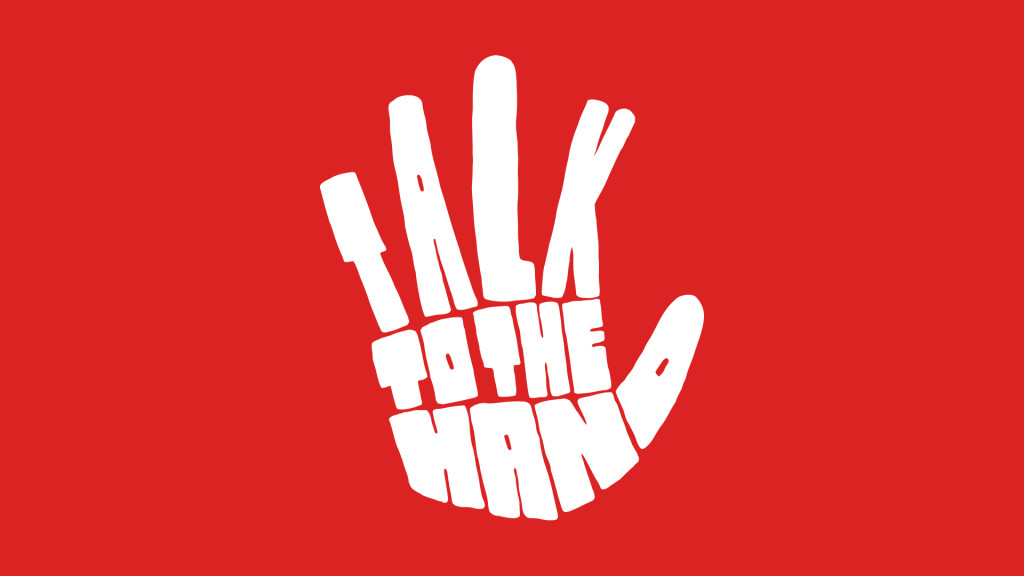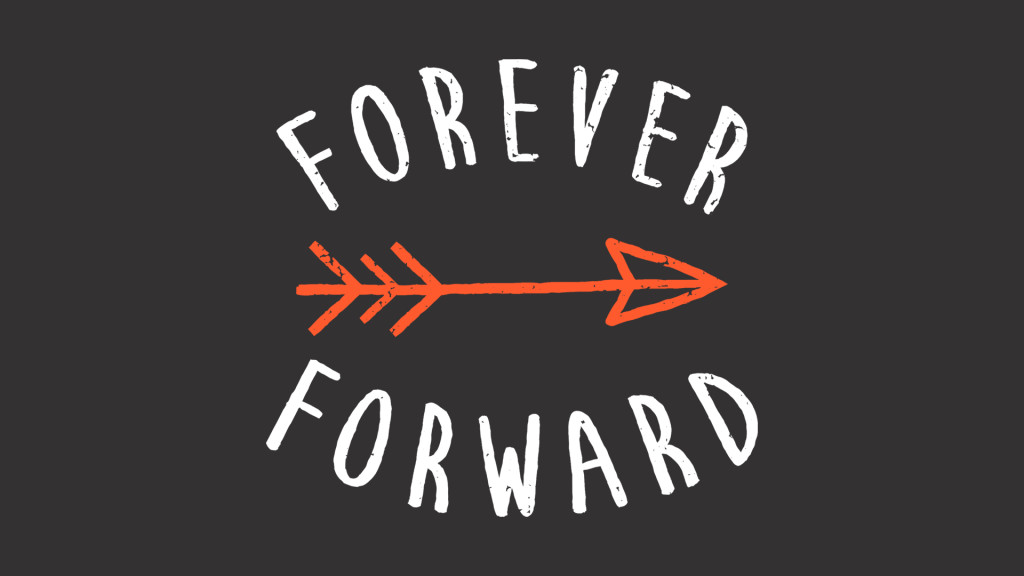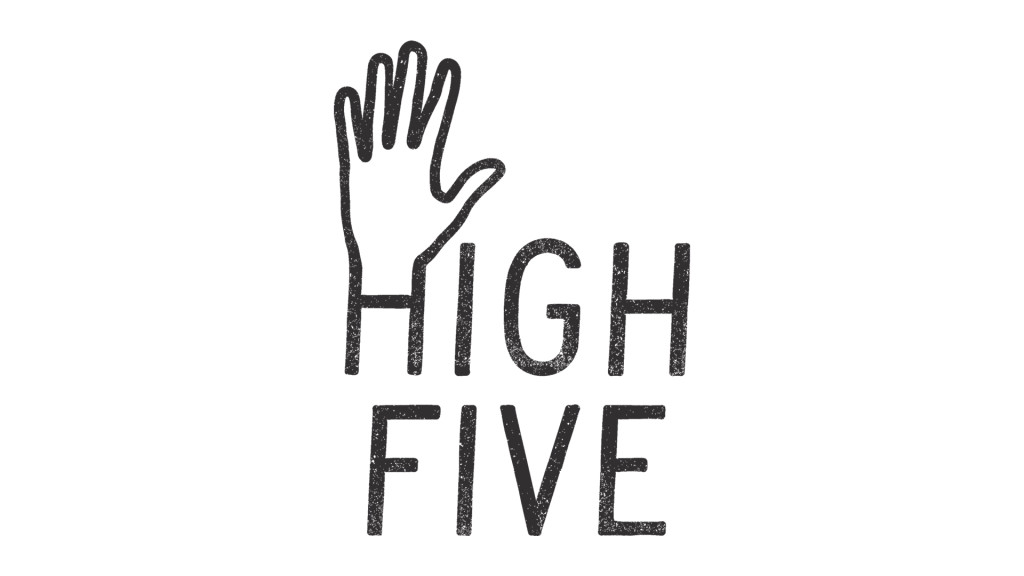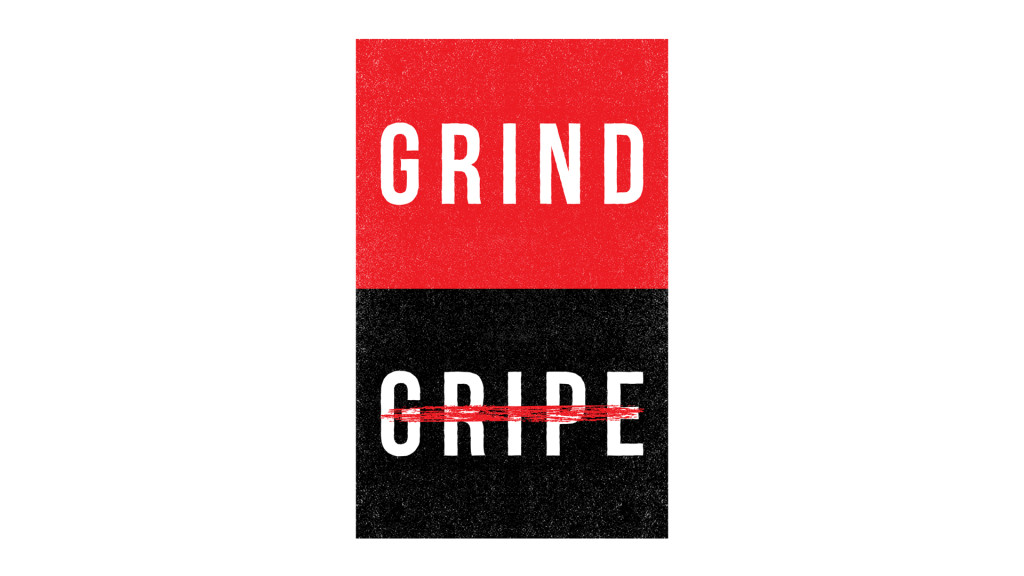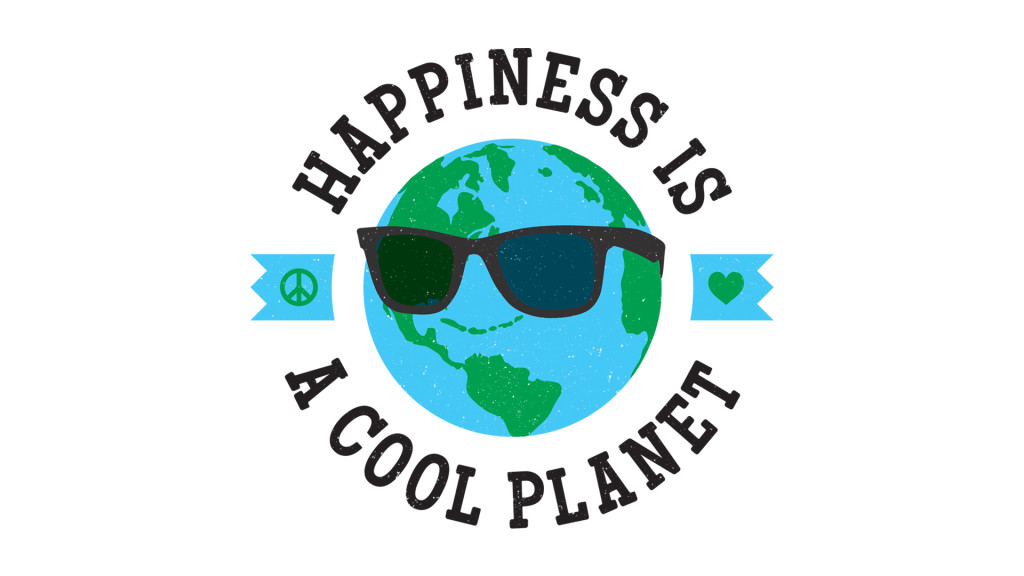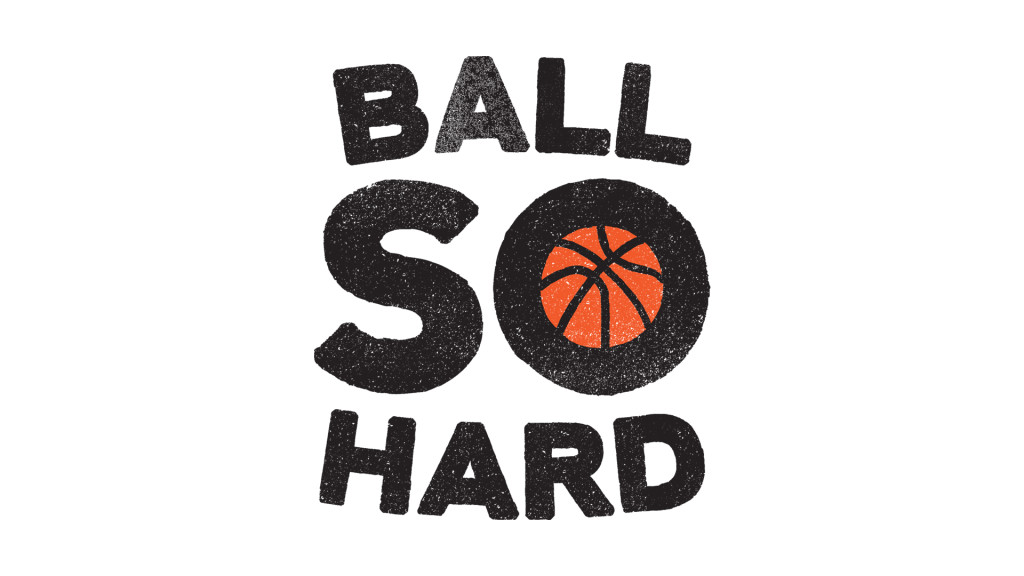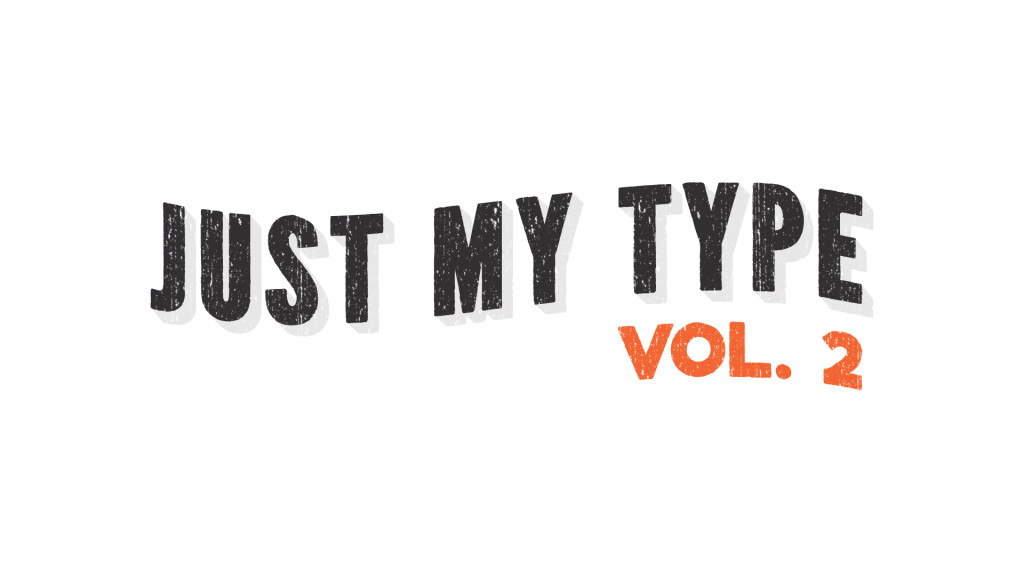
Type sketch series is full of font fun
Graphic designer Andrew Gregory has released his latest typographic series.
Starting out as a few simple doodles, graphic designer Andrew Gregory turned his typography sketches into a series; with volume one proving a hit, he's embarked on volume two for more font-fun. "I try to post doodles to my Instagram account on a daily basis to see if people like the basic concept," he says.
"From the doodle stage, I work primarily in Illustrator and then jump over to Photoshop to apply distressed textures." As the designs are created to be produced on t-shirts, sweaters and more, Gregory says the biggest challenge is designing something that he'd actually want to wear or hang on his wall.